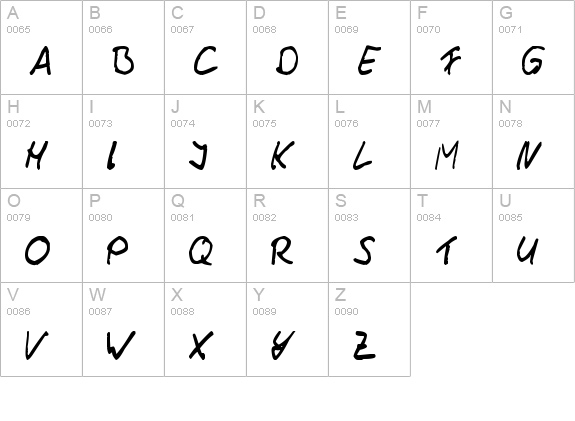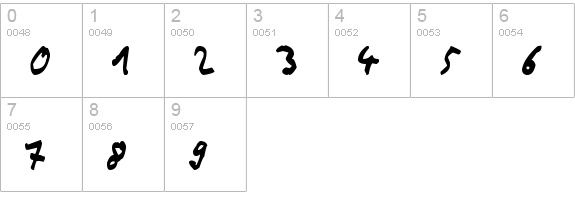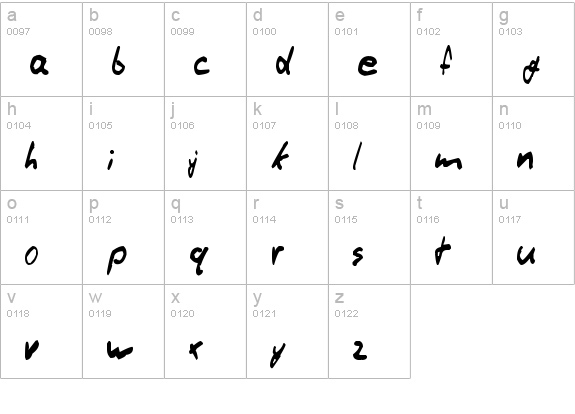
Thommy Handwrite Font Details
Introducing Thommy Handwrite, a delightful and versatile font that effortlessly captures the essence of handwritten charm. With its unique and playful strokes, Thommy Handwrite adds a touch of personality to any project, making it perfect for invitations, greeting cards, logos, and more. This font exudes a sense of authenticity, as if every letter was lovingly crafted by hand. Its carefully designed curves and imperfect lines give it a human touch, making it feel warm and inviting. Whether you're looking to add a personal touch to your designs or create a nostalgic atmosphere, Thommy Handwrite is the ideal choice. One of the best things about Thommy Handwrite is that it is available for free! That's right, you can download this font without spending a penny. Simply head over to FontsMarket.com, where you'll find Thommy Handwrite waiting to enhance your creations. It's never been easier to add a touch of handwritten elegance to your designs. Don't miss out on the opportunity to elevate your projects with Thommy Handwrite. Download this font today and let its distinctive style bring your creations to life. Whether you're a professional designer or a passionate hobbyist, Thommy Handwrite is sure to become an essential part of your font collection. Embrace the beauty of handwritten artistry and let Thommy Handwrite be your creative companion.